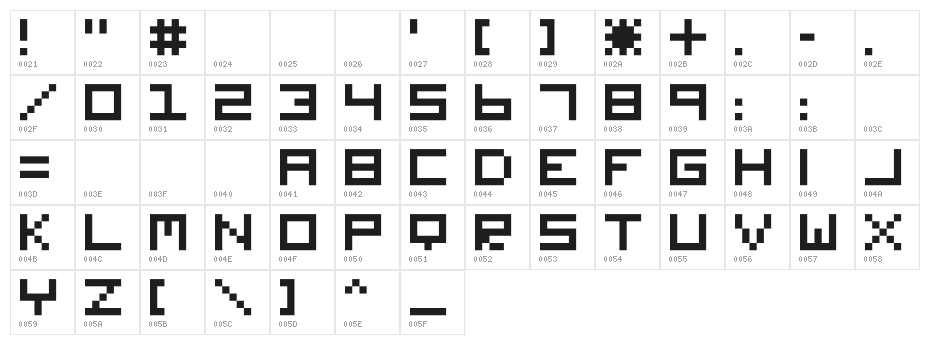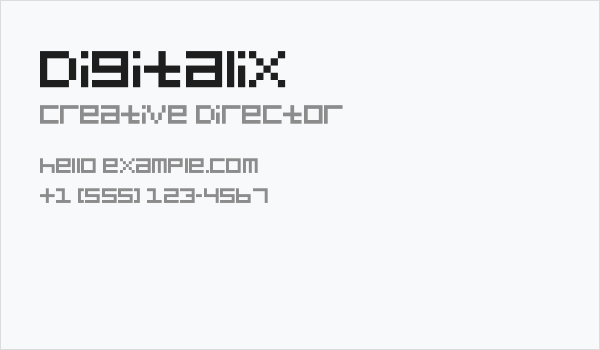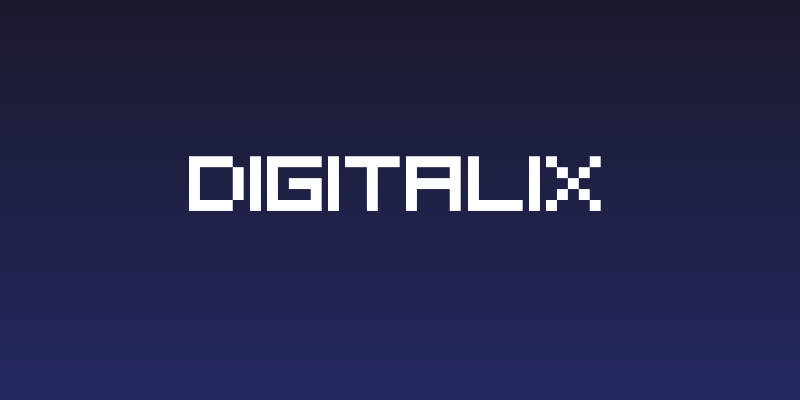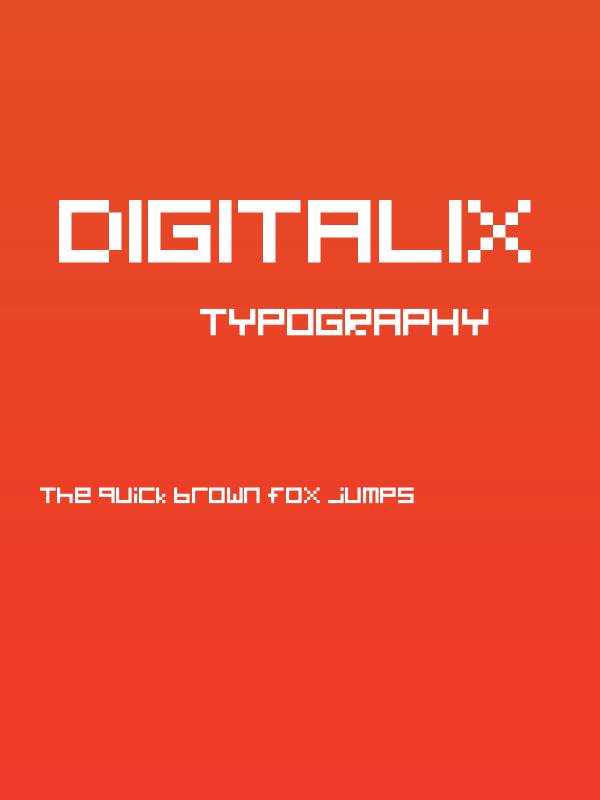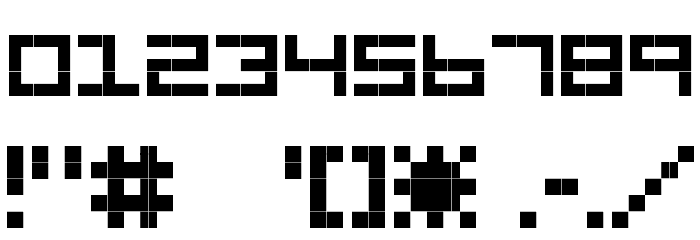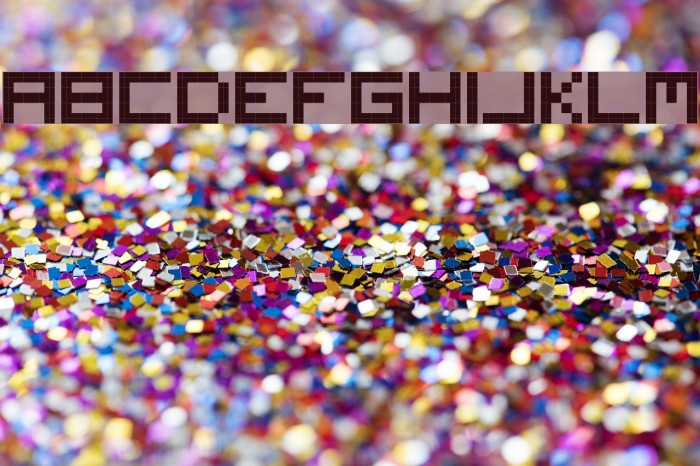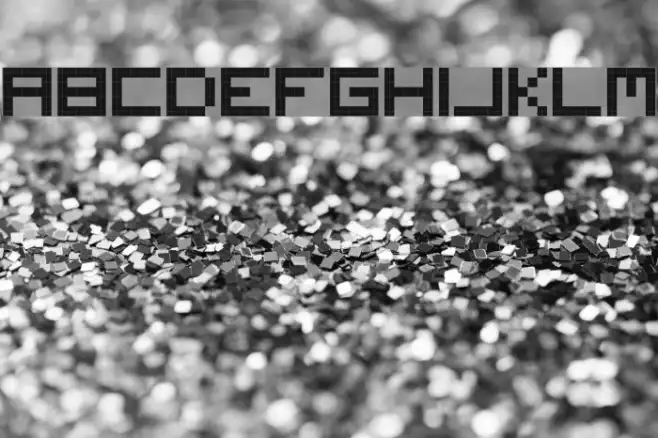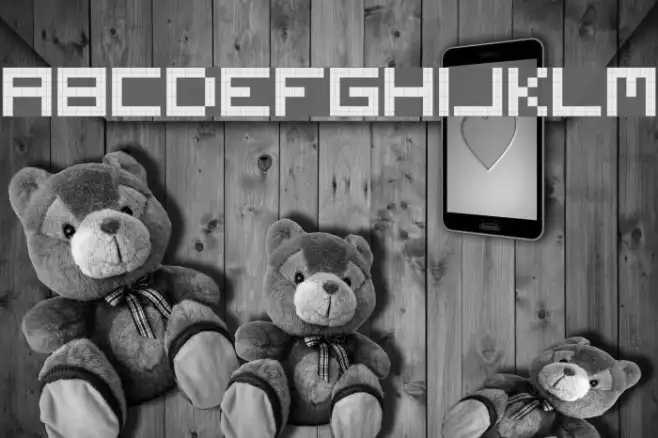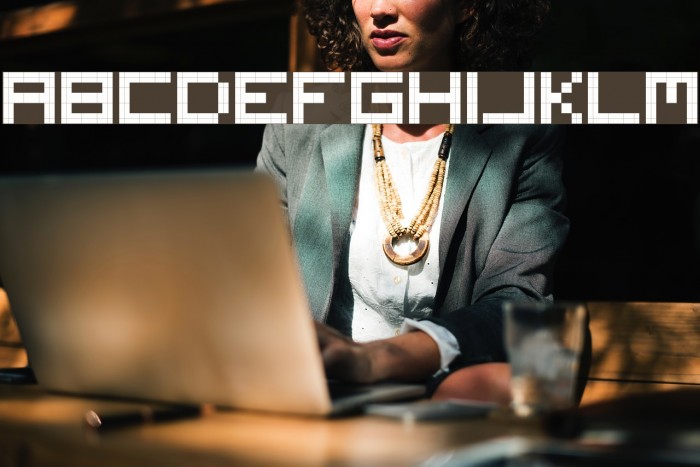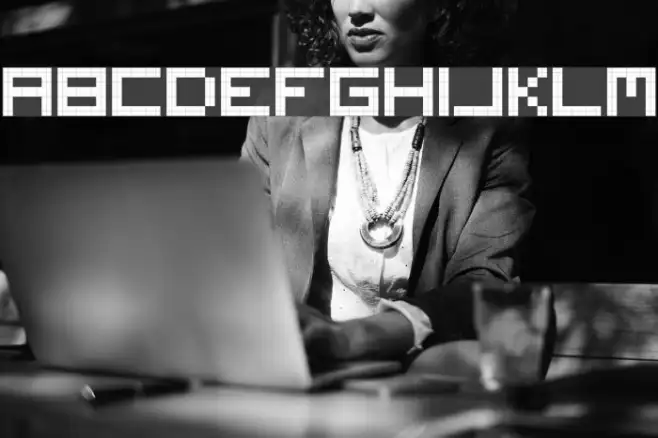
Digitalix Font
Digitalix Description
This font features a pixelated, digital aesthetic reminiscent of early computer displays and retro video games. Each character is constructed from a grid of squares, giving it a blocky and geometric appearance. The uppercase and lowercase letters maintain a consistent height, contributing to a uniform look across the text. Numbers and special characters follow the same pixelated style, ensuring cohesion throughout. The font's design is straightforward and highly legible, making it suitable for digital-themed projects. Its unique style captures a sense of nostalgia while remaining modern and relevant.
| Overall Style | Modern, Retro |
| Use Case | Headlines, Logos, Digital Art |
| Proposed Projects | Ideal for digital art, retro video game graphics, tech-themed posters, and websites with a vintage computer aesthetic. |